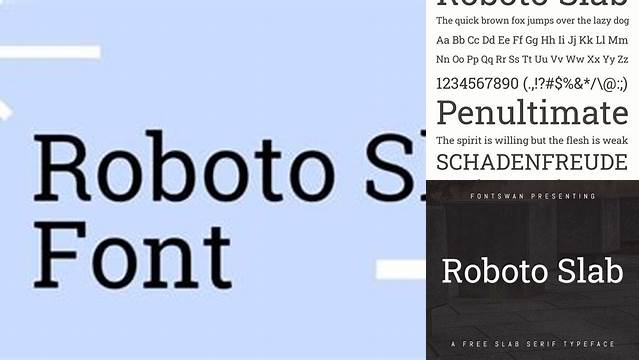
Roboto Slab 900 Font: What's the Buzz?
So, what's the deal with Roboto Slab 900? This font is part of the Roboto family, a popular choice among designers and developers for its clean, modern look and excellent readability. The 'Slab' part means it has those cool, thick serifs – the little lines at the end of each letter stroke. And the '900' refers to the weight, which is the heaviest, boldest option available. Think of it as the super-strong, attention-grabbing version! This makes it perfect for headlines, titles, and any text where you want to make a big impact. Getting your hands on a Roboto Slab 900 font free download opens up a world of possibilities for your design projects. This font is super versatile, and it can be used in a variety of projects, from website design to print materials. The bold weight is particularly effective for creating strong visual hierarchies, ensuring that your important messages are easily noticed. Finding a Roboto Slab 900 font free download is a great way to add a professional touch to your projects without breaking the bank. Before you proceed with any download, it's important to check the license to make sure you're using it correctly for your intended purpose. Always prioritize sites that offer verified fonts and avoid any that seem suspicious to protect your computer from malware. You can also use it in branding. This font has a great combination of clarity and personality, which makes it ideal for both small and large businesses. You can also explore the various weights and styles available within the Roboto Slab family to further enhance your designs. With Roboto Slab 900, you get a font that’s not only stylish but also super practical. Its robust design ensures readability even at smaller sizes, which is essential for a great user experience.
Roboto Slab 900 Font: Usage in Web Design
Roboto Slab 900 is a fantastic choice for web design, especially when you need a bold, attention-grabbing headline. Its strong presence makes it perfect for hero sections, titles, and calls to action. When using the Roboto Slab 900 font free download in your web design, consider the overall visual hierarchy of your site. Use it strategically to guide the user’s eye and emphasize important information. Remember that readability is key. While Roboto Slab 900 is bold, make sure it complements the other fonts used on your site. Contrast is important, so pair it with a lighter font for body text to create a good balance. Keep the font size in mind, too. Too large, and it can overwhelm the page; too small, and it becomes difficult to read. In CSS, you can easily apply the font to your HTML elements using the @font-face rule and the font-family property. If you are using Google Fonts, you can link to the font directly in your HTML or import it into your CSS. You can also consider its impact on website speed. Larger font files can sometimes slow down page loading times. If you're using Roboto Slab 900, make sure to optimize it by selecting only the font weights and styles you need, and by using a CDN (Content Delivery Network) to speed up delivery. This helps maintain a balance between visual appeal and user experience. You can also leverage other style, such as the bold, italic, and strong tags. By using the Roboto Slab 900 font, you are sure to make your website more visually engaging and accessible.